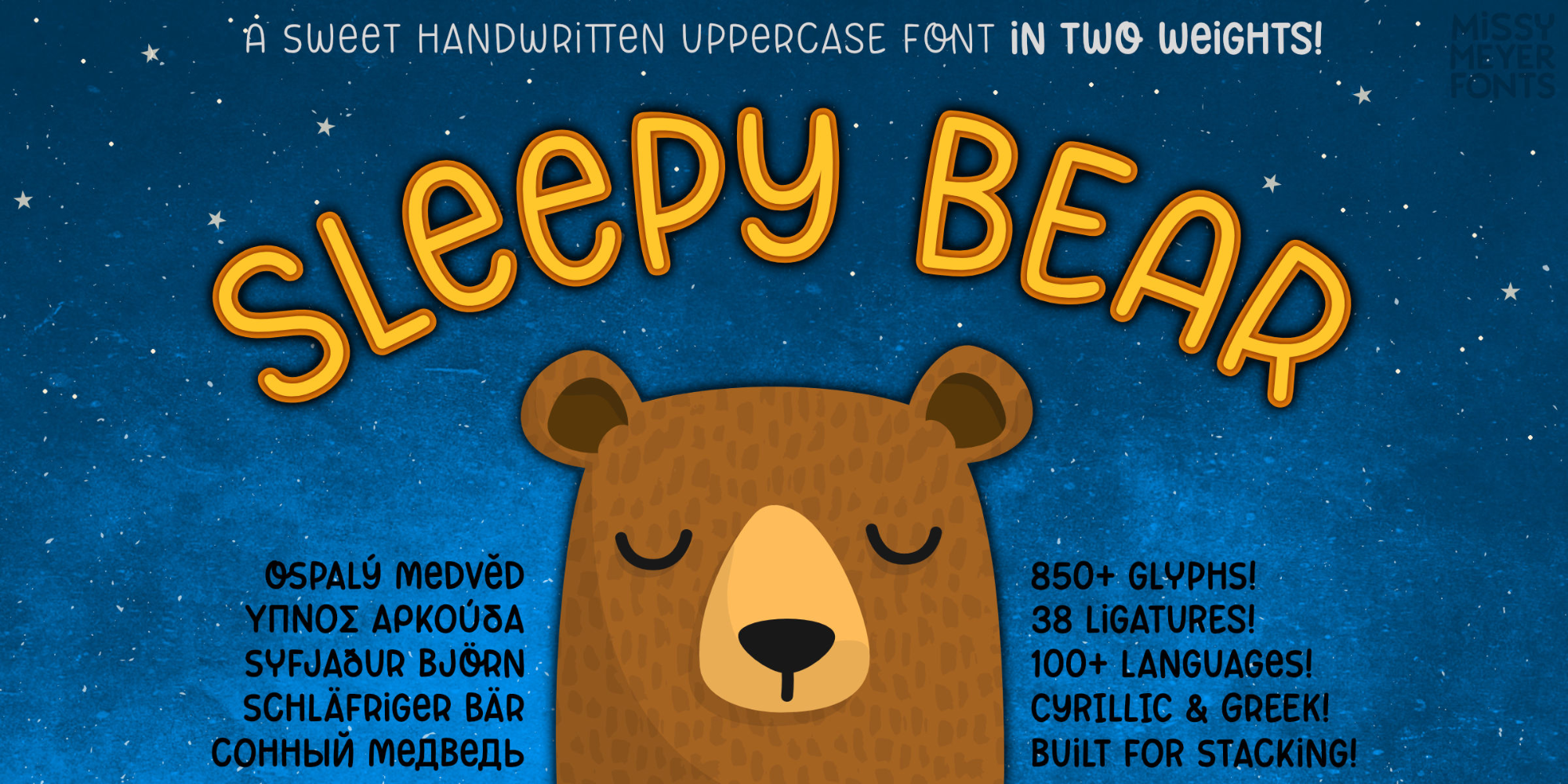
Sleepy Bear Font is perfect for children's bedtime story books, nursery room decor, baby product packaging, cozy pajama brand logos, sleepwear company branding, children's furniture design, lullaby app interfaces, gentle parenting blog headers, comfort food restaurant signage, and warm family-oriented marketing materials. This adorable typeface brings comfort and whimsy to designs that need to evoke feelings of safety, warmth, and peaceful contentment.
What makes Sleepy Bear Font exciting is its irresistible combination of cuddly charm and soothing visual comfort that instantly creates feelings of warmth and security. The font features soft, rounded letterforms with gentle curves and playful character details that evoke the cozy comfort of a favorite teddy bear. Its endearing design language communicates safety, love, and nurturing care, making it perfect for brands targeting families, children, or anyone seeking to create emotional connections through gentle, comforting design aesthetics.
Sleepy Bear Font comes in cozy font families including Regular, Bold, Light, Rounded, Outline, and Decorative variations. Each family member captures the cuddly essence of the original design while providing different stylistic options to create gentle typographic displays that work beautifully for both digital applications and printed materials targeting young audiences.
Whether you're designing for children's markets or creating comforting brand experiences, Sleepy Bear Font Free Download delivers the perfect blend of playfulness and tranquility. The font's gentle character and soothing appeal make it an excellent choice for designers who want to create nurturing emotional connections through typography that celebrates childhood innocence, family bonds, and the simple joy of feeling safe and loved.